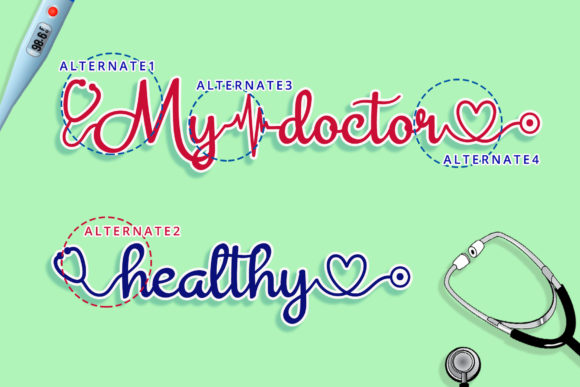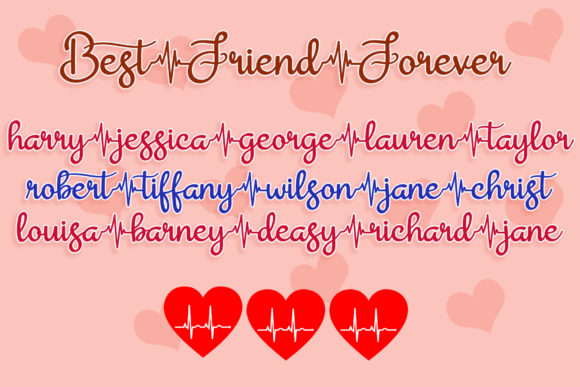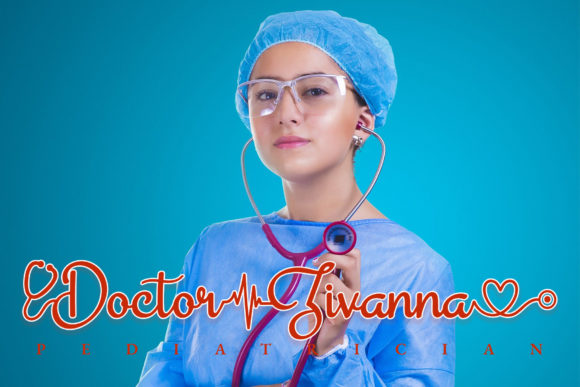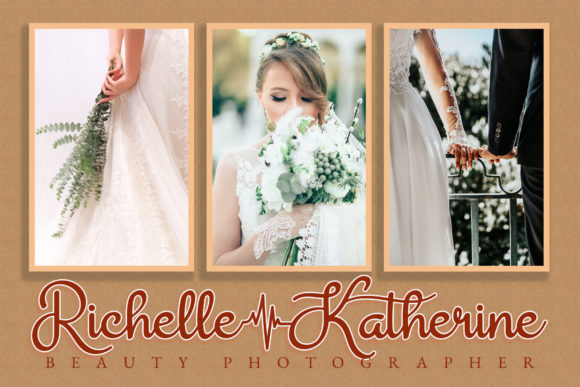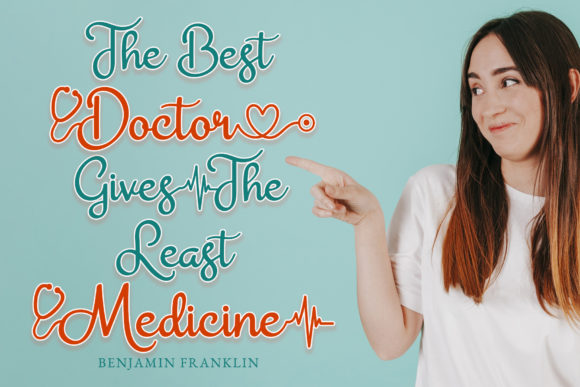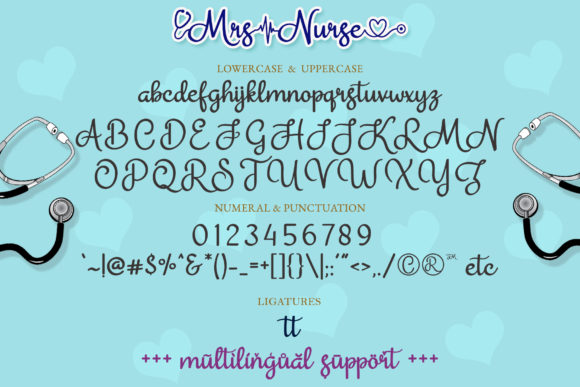
Introduction to Mrs Nurse Font
Mrs Nurse is an elegant handwritten font with a modern feeling.
Mrs Nurse font will elevate a wide range of design projects to the highest level, be it branding, headings, wedding designs, invitations, signatures, logos, labels, and much more .
Mrs Nurse Font offers exceptional quality and versatility, making it a valuable addition to your design toolkit. Whether you’re creating for personal projects or commercial use, Mrs Nurse Font delivers professional results.